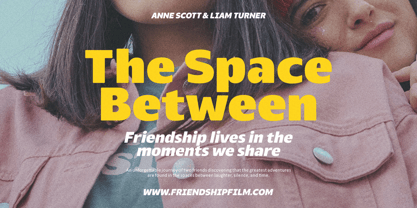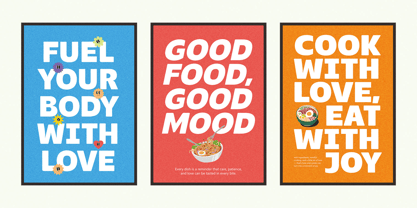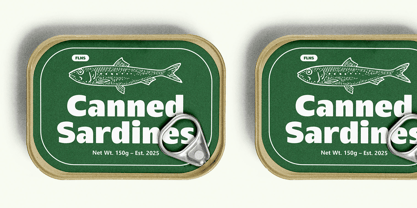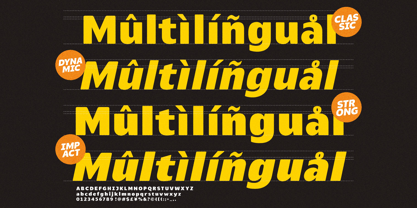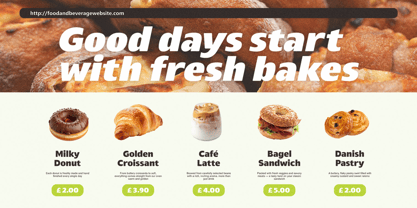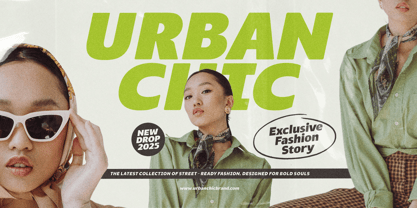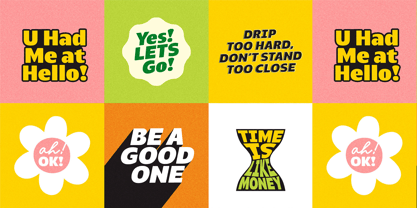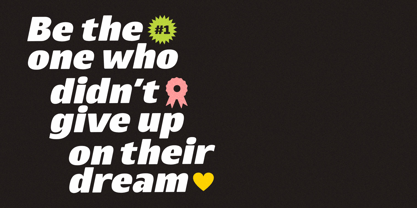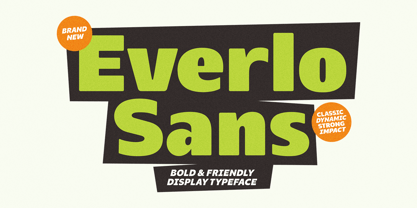
Everlo Sans
by Four Lines Std
The Everlo Sans Font Family was designed by Zain Fahroni and published by Four Lines Std. Everlo Sans contains 4 styles and family package options. More about this family
Everlo Sans is a bold & friendly display typeface designed to bring a sense of strength, dynamism, and warmth to any project. With its solid yet approachable letterforms, Everlo Sans strikes the perfect balance between classic character and modern style.
Perfect for a wide range of design needs such as posters, headlines, branding, logos, product packaging, film titles, editorial layouts, quotes, social media posts, and campaign ads.
The font also comes with multilingual support, making it versatile for use across various languages.